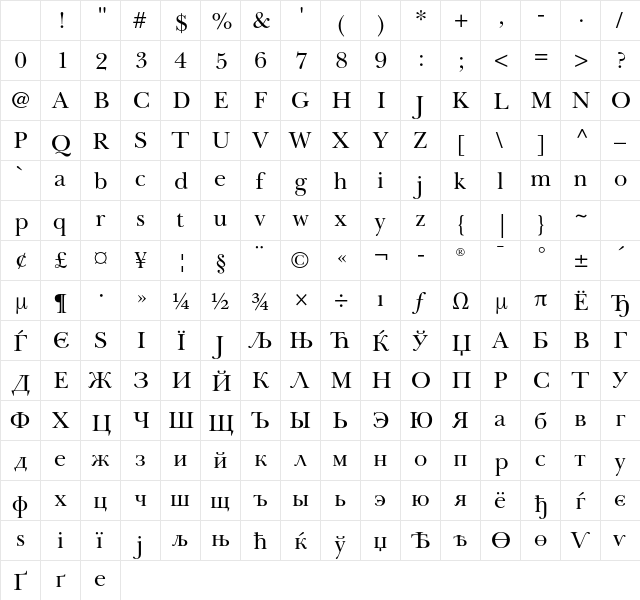
Baskerville Cyrillic LT Std Upright
Style: Upright
Designer: Linotype Staff
Design Context for Baskerville Cyrillic LT Std
Baskerville Cyrillic LT Std is a composed and adaptable typeface that performs quietly and consistently across a wide range of design contexts. Its slender proportions lend an understated elegance to any composition.